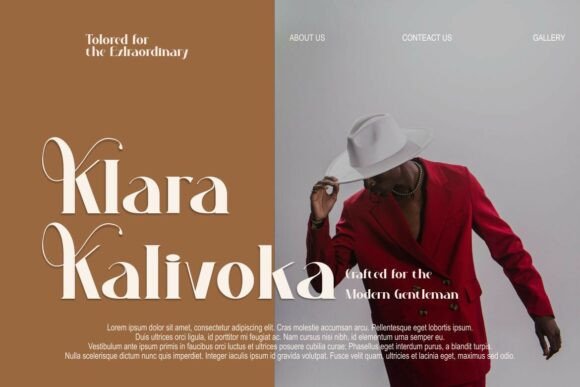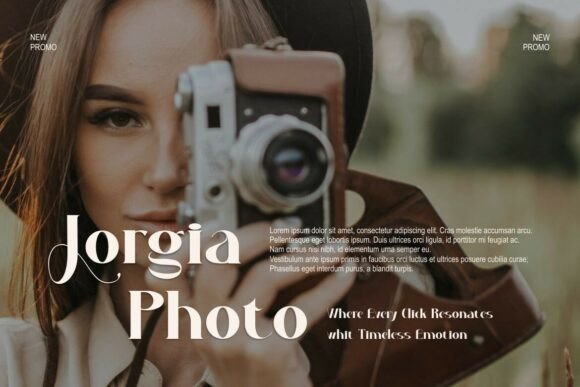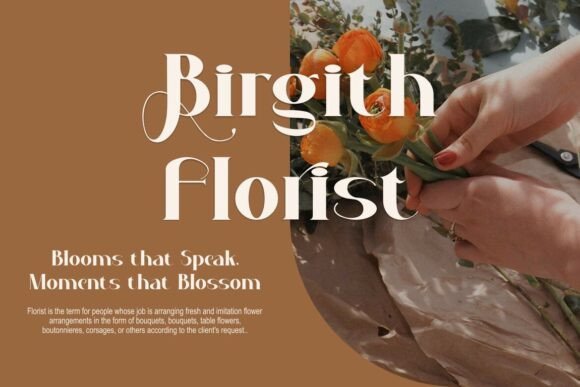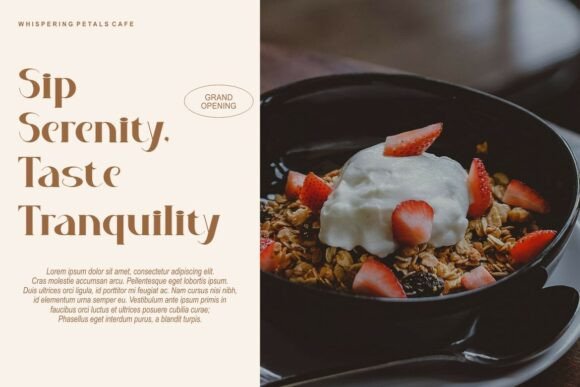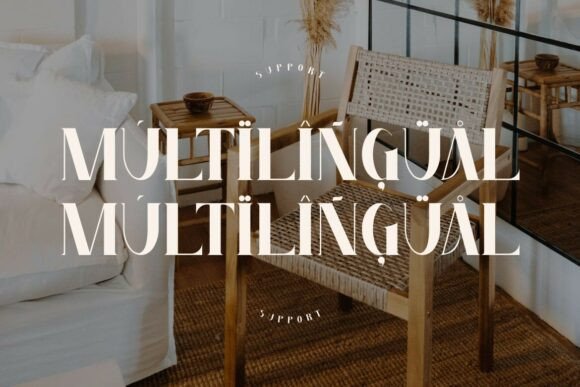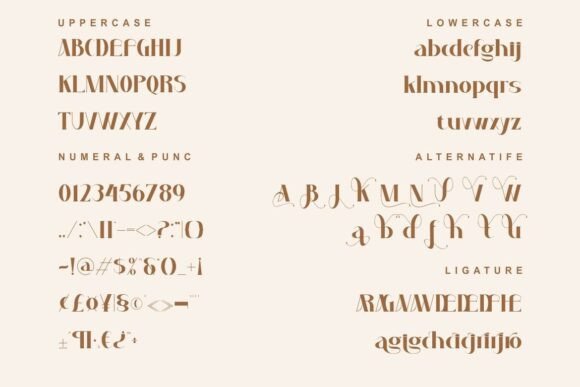
Introducing Bertha Font: Elevate Your Designs with Elegance and Boldness
Are you on the hunt for a font that exudes elegance, sophistication, and a touch of boldness? Look no further than Bertha Font! This stunning serif font is making waves in the design community, and for good reason. With its incredibly versatile style, Bertha is perfect for creating a wide range of designs, from gorgeous wedding invitations to beautiful stationery art, eye-catching social media posts, and so much more.
The Bertha Font Advantage
Bertha Font is more than just a pretty face – it’s a design powerhouse. Its elegant and bold serif style makes it perfect for designs that require a touch of sophistication and glamour. Whether you’re a designer, crafty DIY enthusiast, or social media influencer, Bertha Font is sure to become your go-to choice for creating stunning visual content.
What Makes Bertha Font So Versatile?
Bertha Font’s versatility lies in its unique combination of elegance and boldness. The font’s serif style adds a touch of classic sophistication, while its bold weight ensures that your designs stand out from the crowd. Whether you’re creating:
• Wedding invitations and stationery: Bertha Font’s elegant style makes it perfect for creating beautiful, bespoke wedding designs.
• Social media posts: Bertha Font’s bold weight ensures that your social media posts grab attention and make a lasting impression.
• Stationery art: Bertha Font’s classic style makes it perfect for creating beautiful stationery art, from greeting cards to journals.
• Branding and packaging: Bertha Font’s versatility makes it perfect for creating stunning brand identities and packaging designs.
Why Designers and Crafters Love Bertha Font
Bertha Font has quickly become a favorite among designers and crafters, and it’s easy to see why. Here are just a few reasons why:
• Ease of use: Bertha Font is incredibly easy to use, even for those with limited design experience.
• Customization: Bertha Font comes with a range of customization options, allowing you to tailor the font to your specific design needs.
• Unique style: Bertha Font’s unique combination of elegance and boldness sets it apart from other fonts on the market.
• Time-saving: With Bertha Font, you can create stunning designs in a fraction of the time it would take with other fonts.
Tips for Getting the Most Out of Bertha Font
To get the most out of Bertha Font, here are a few tips to keep in mind:
• Experiment with different weights: Bertha Font comes in a range of weights, from light to bold. Experiment with different weights to find the one that works best for your design.
• Pair with complementary fonts: Bertha Font pairs beautifully with a range of complementary fonts. Experiment with different pairings to find the one that works best for your design.
• Use in combination with images: Bertha Font looks stunning when used in combination with images. Experiment with different image combinations to find the one that works best for your design.
In conclusion, Bertha Font is a game-changer for designers and crafters. Its elegant and bold serif style makes it perfect for creating a wide range of designs, from gorgeous wedding invitations to beautiful stationery art, eye-catching social media posts, and much more. With its ease of use, customization options, and unique style, Bertha Font is sure to become your go-to choice for creating stunning visual content. So why wait? Fall in love with Bertha Font today and elevate your designs to the next level!